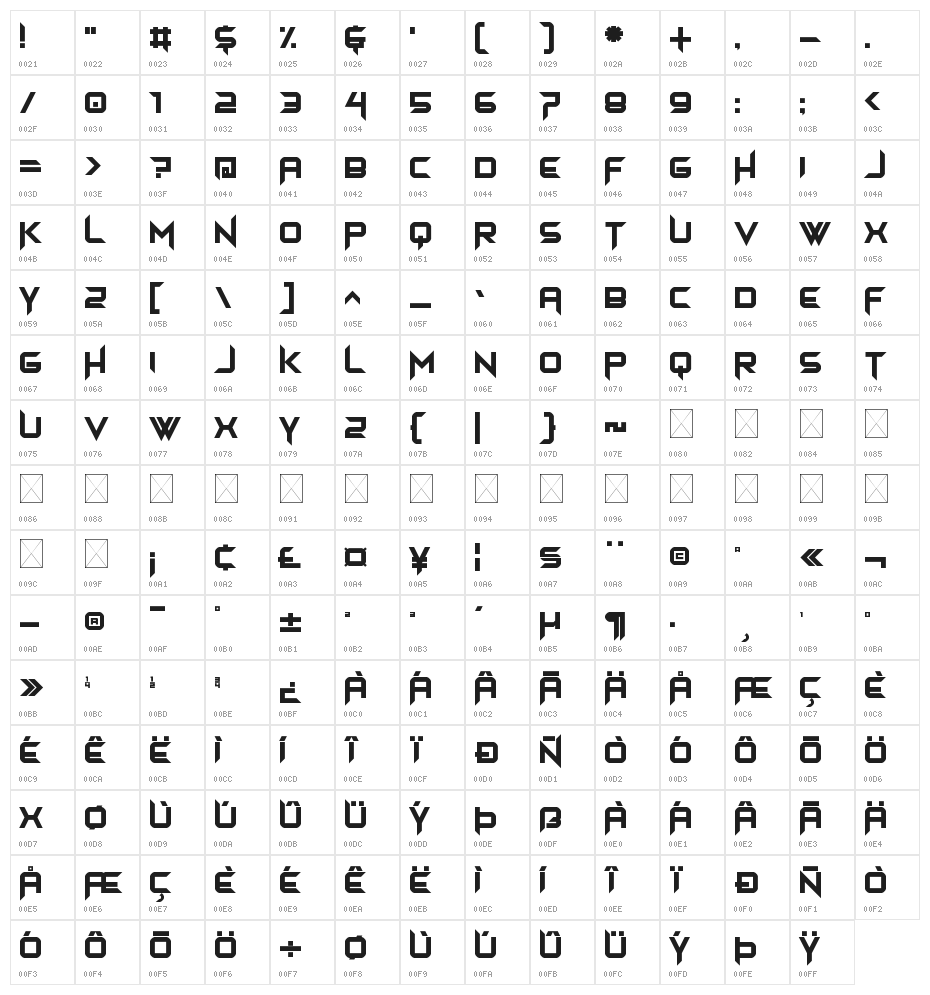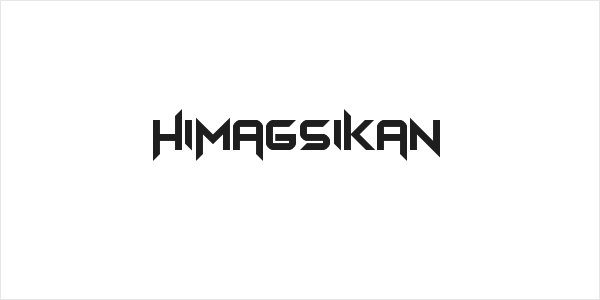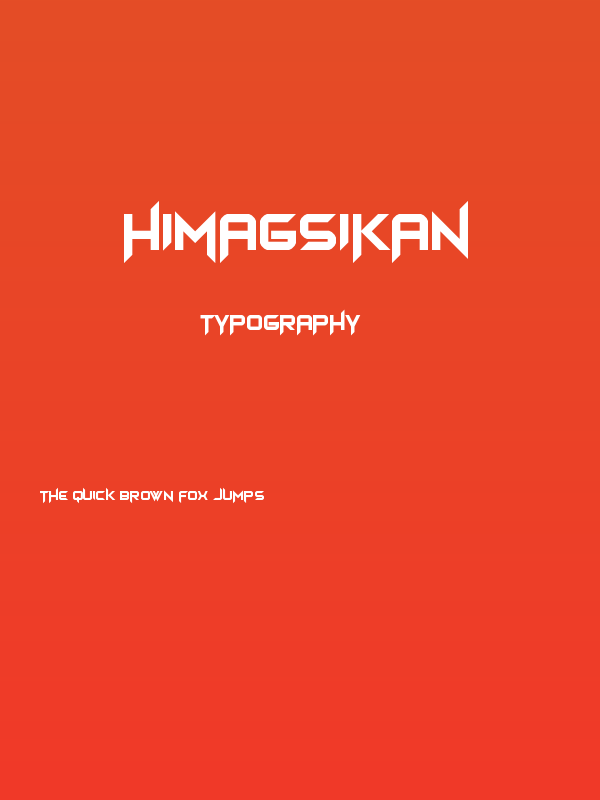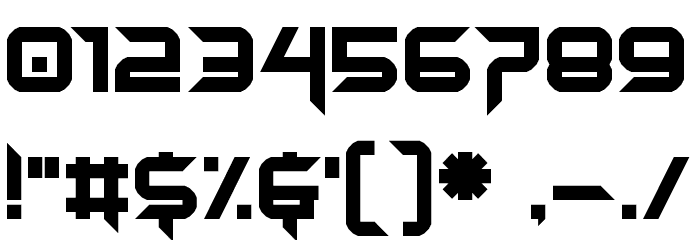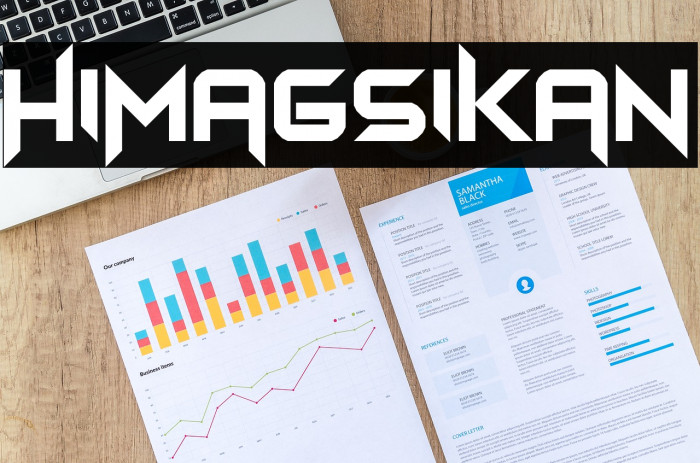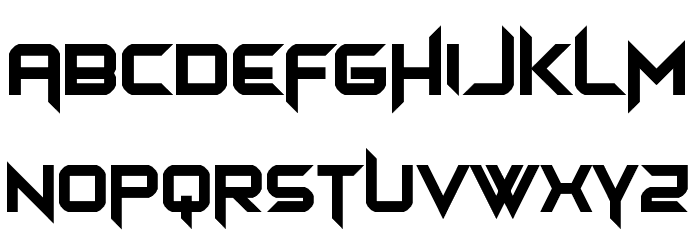
Himagsikan Font
Himagsikan Description
This font exhibits a bold and futuristic design with sharp, angular edges and a geometric structure. The characters are crafted with a consistent thickness, giving a uniform appearance across both uppercase and lowercase letters. The numerals and special characters maintain the same angular style, enhancing the cohesive look. The font's unique style is reminiscent of digital or sci-fi themes, making it stand out with its distinctive, edgy appearance.
| Proposed Projects | Ideal for sci-fi themed projects, video game titles, tech branding, and futuristic posters. |